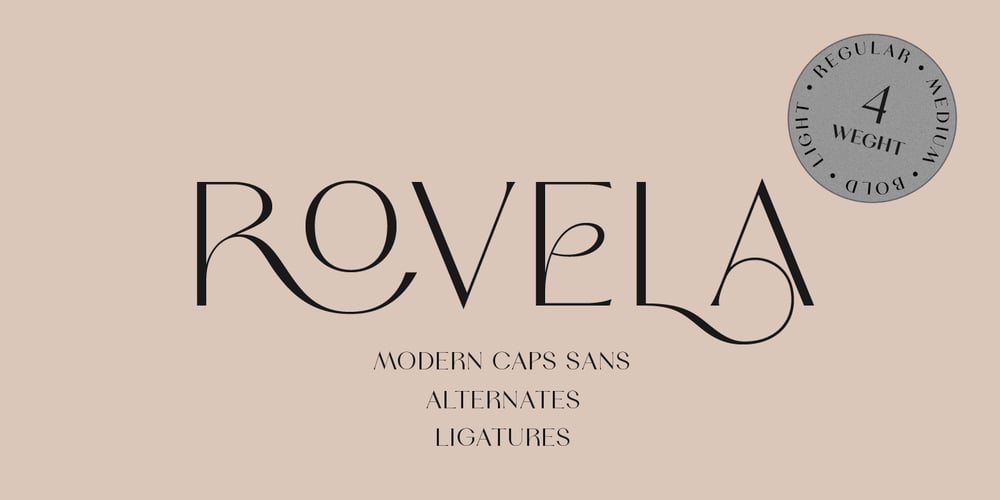
Rovela Font Family was designed by Pavel Larin and published by Larin Type Co. Rovela contains 8 styles and family package options. Rovela is an elegant, modern and contrast sans-serif font family, and a great fashionable solution for your project. It includes upright and oblique style, each of them has four weights from thin to bold. This is a modern stylish and bright logo font it includes many alternatives and ligatures with which you can play and choose the option that suits you. With it, you can create logos, banners, use in advertising, packaging, book covers and magazines, headings, descriptions and much.Font including: Full caps alphabetA-Z Numbers, fractions Punctuation and symbols 82 alternates 51 ligatures